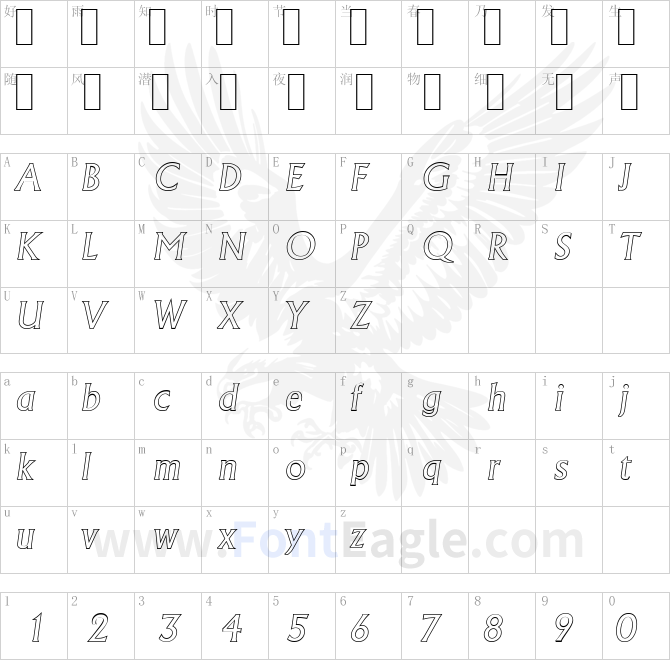
- Font name:AdelonOutline
- Font Subfamily ID:SoftMaker Software GmbH AdelonOutline-Italic
- Font Full Name:AdelonOutline-Italic
- Postscript:AdelonOutlineItalic